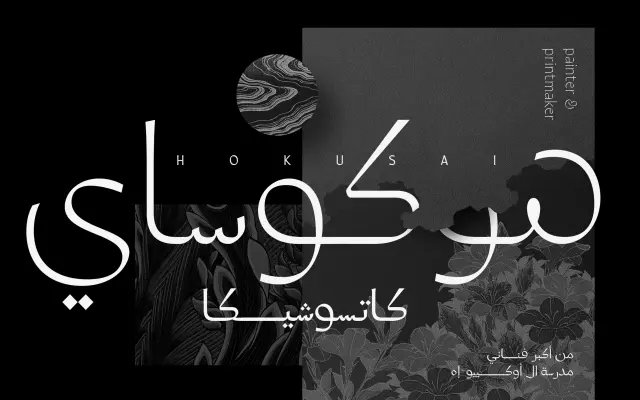
Quiverleaf Arabic
A humanist sans that extends the Latin Quiverleaf family into Arabic script, offering five weights for both scripts in a visually unified family.
The ribbon-like stroke movement of the original Quiverleaf carries across into Arabic letterforms, maintaining visual cohesion between the two scripts. Five weights from Light to Extra Bold suit both running text and large-scale headline use. Language support spans Arabic, Persian and Urdu alongside broad Latin Extended coverage including Central and Eastern European languages.
Described as humanist in origin, the family carries flowing, ribbon-like strokes across both Latin and Arabic scripts, characteristic of humanist sans design adapted for multi-script use.